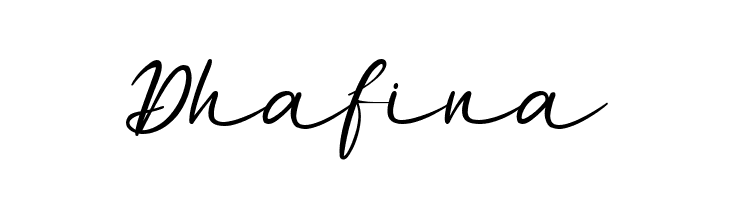
A modern, sleek font with tall, narrow characters and uniform stroke width.
A bold, modern font with dynamic vertical lines creating a futuristic look.
A bold, hand-drawn font with an expressive, graffiti-like style.
A decorative and narrow font with intricate curves and a modern-vintage style.
A whimsical collection of musical, geometric, and nature-inspired dingbats.
A casual, elegant handwritten font with fluid, connected strokes.
A modern, elegant script font with flowing, cursive strokes and dynamic contrast.
A whimsical font with rag doll illustrations surrounding each letter.
A bold, playful font with whimsical, rounded letterforms.
A bold, decorative font with playful cutout designs and high contrast.
设计师偏爱 Super Thin, Magnetic, BUIH KOPI, Edda Narrow and Cornucopia of Dingbats Nine Regular,因为其造型干净、适用范围广—— 从品牌识别到落地页、海报都能胜任。